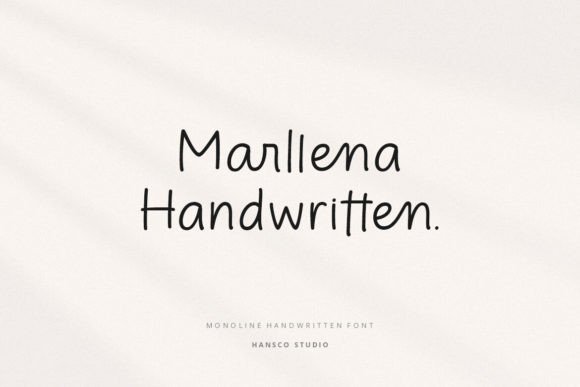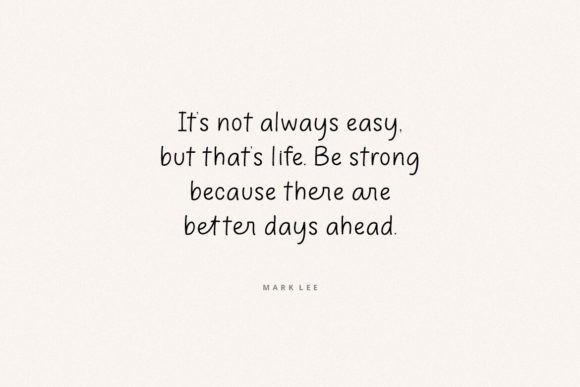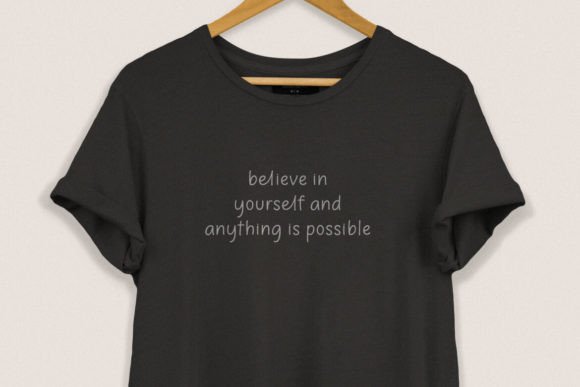
Marllena Font
Marllena is a modern, cute and feminine handwritten font. Some projects that are suitable for this font include quotes, menus, taglines, flyers, posters, invitations, greeting cards, posters, business cards, clothing, letters, stationery and many others. Comes with a full uppercase, lowercase, numbers, punctuation, ligature character and with extensive language support, it’s going to be a very usable addition to your project.